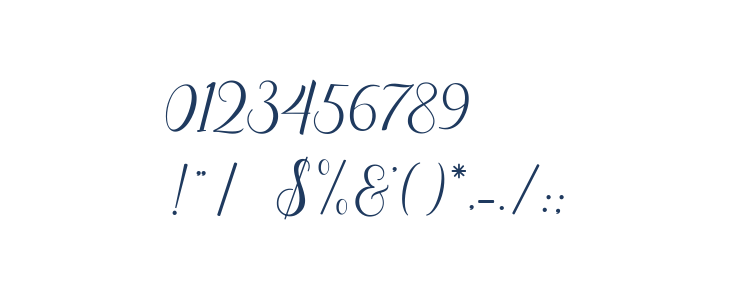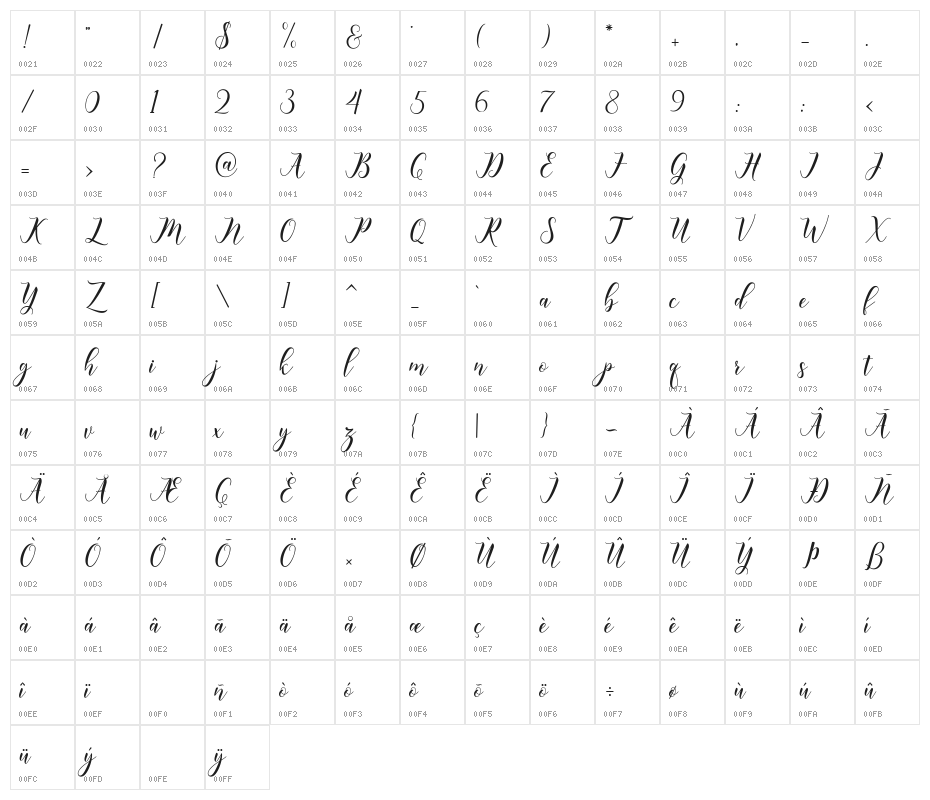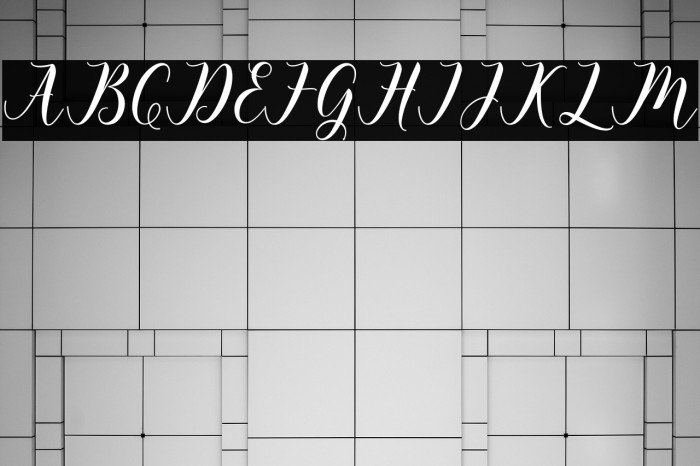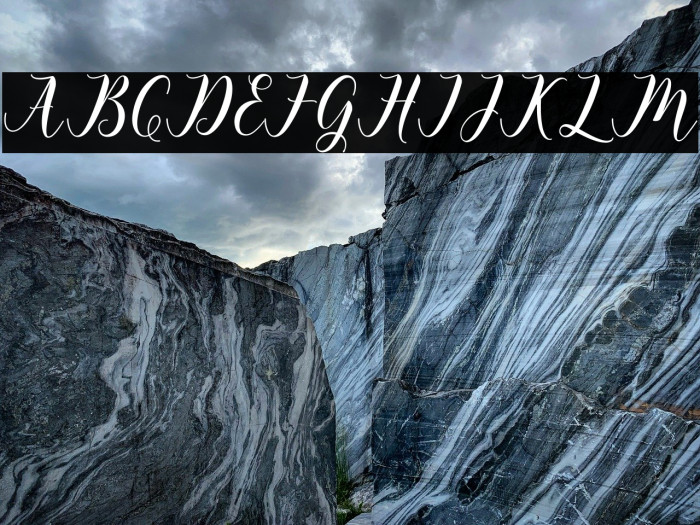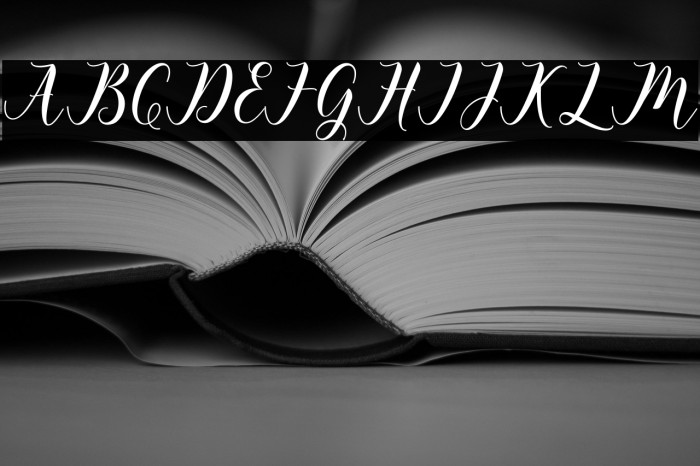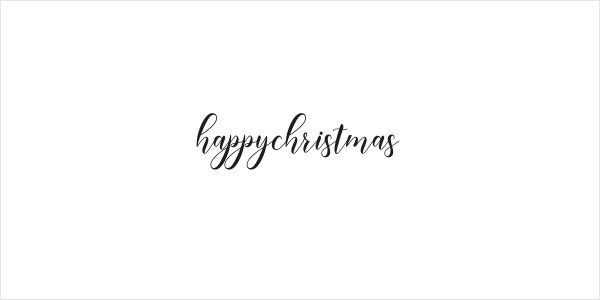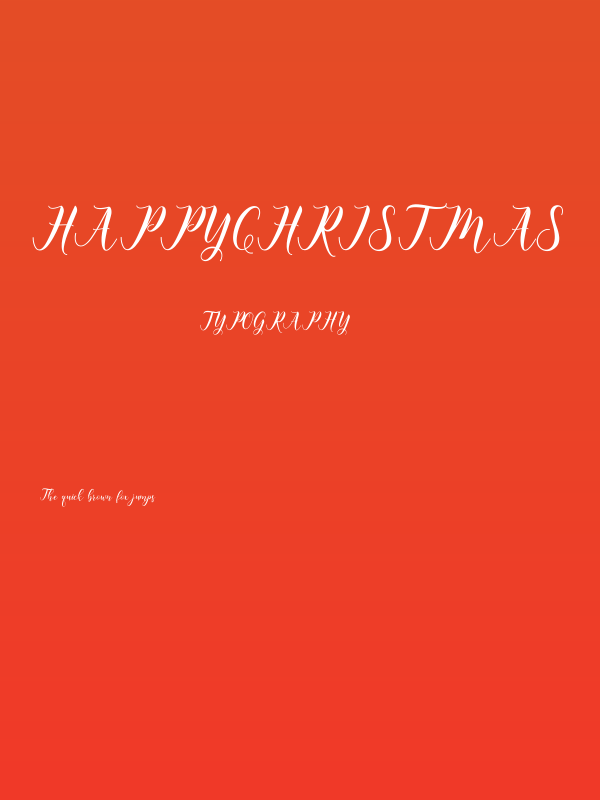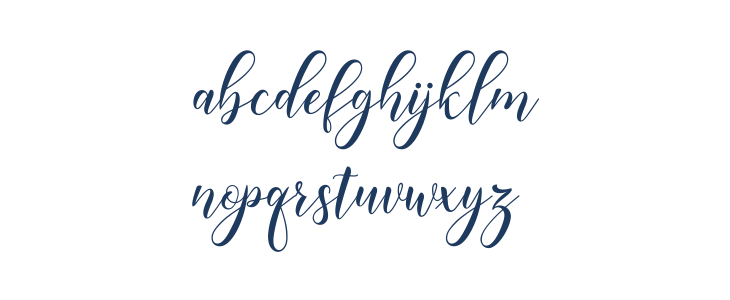
happychristmas Font
happychristmas Description
This elegant script font features flowing, interconnected letters that exude a sense of sophistication and grace. The uppercase characters are ornate, with sweeping curves and delicate flourishes, while the lowercase letters maintain a consistent, fluid style that enhances readability. The numerals are stylishly designed, matching the overall aesthetic of the alphabet. Special characters are thoughtfully crafted, adding to the font's versatility. This typeface is perfect for projects that require a touch of elegance and charm.
| Proposed Projects | Ideal for wedding invitations, elegant branding, greeting cards, and upscale packaging. |